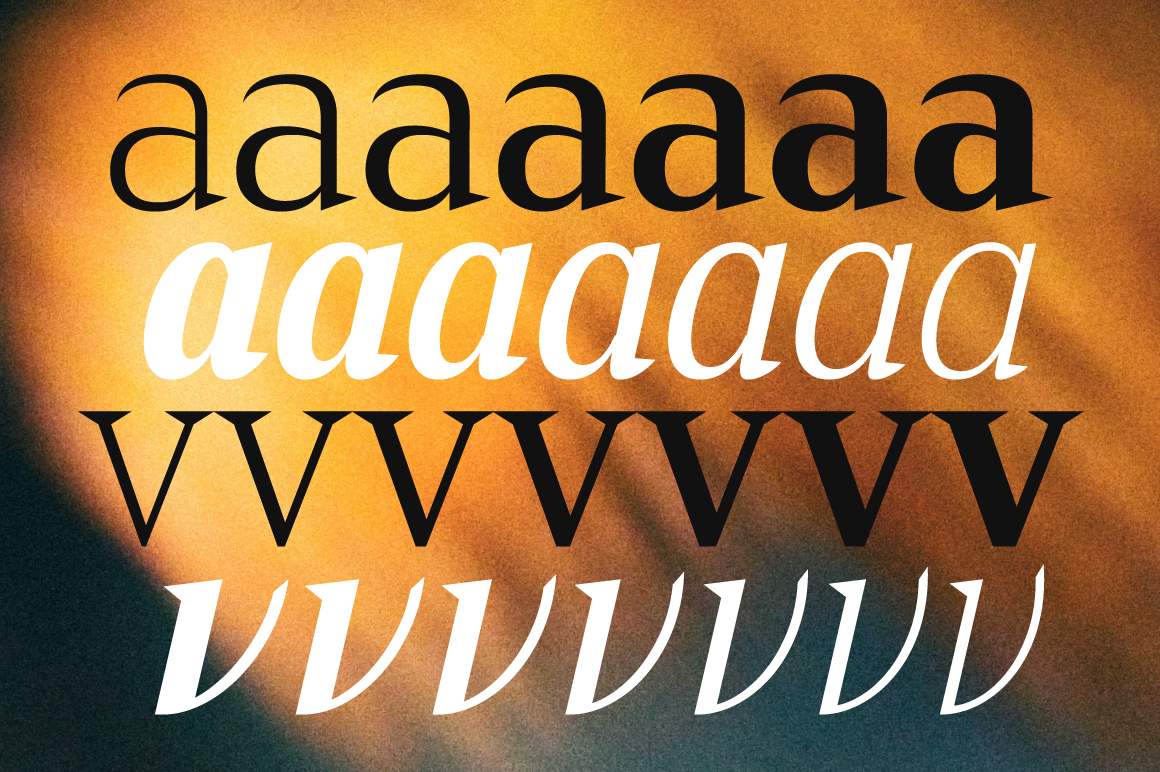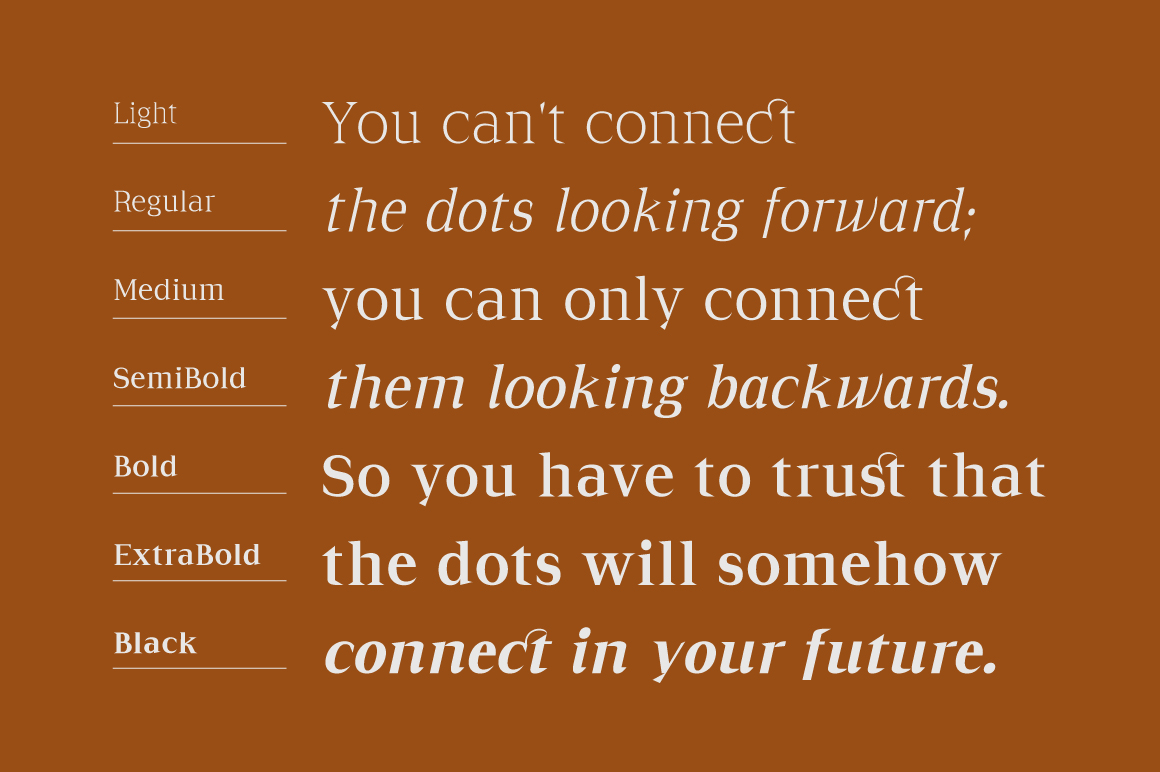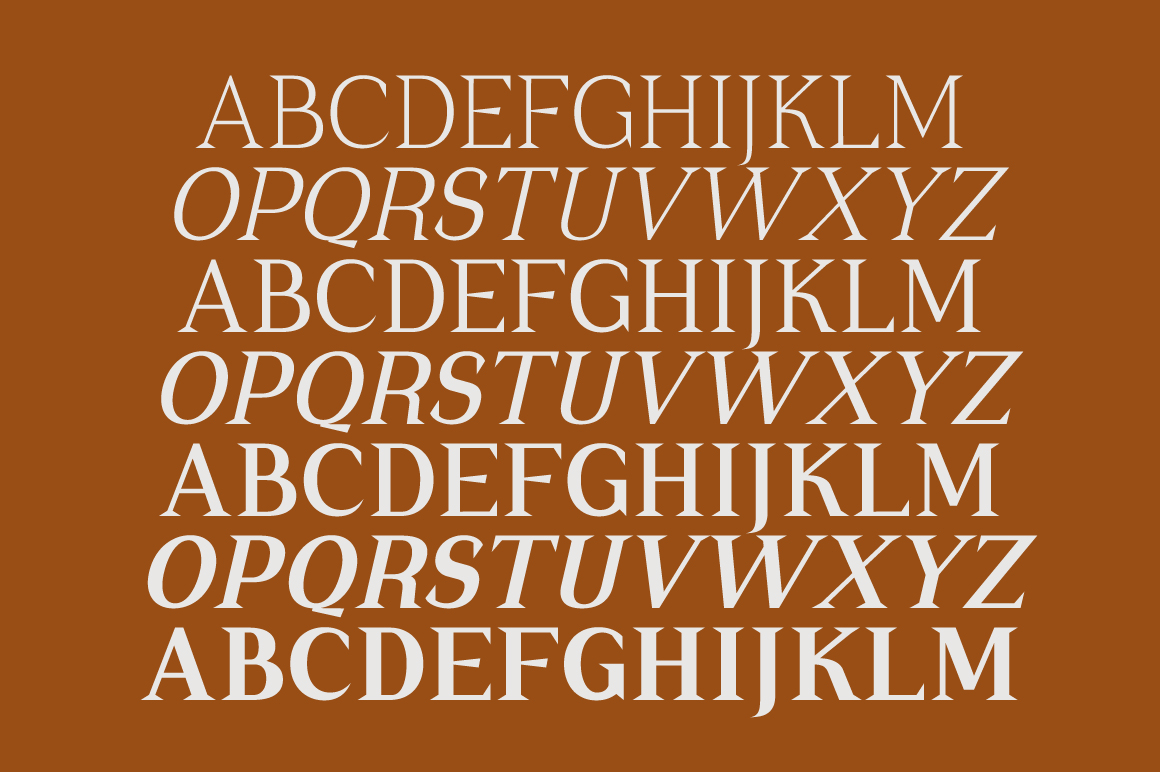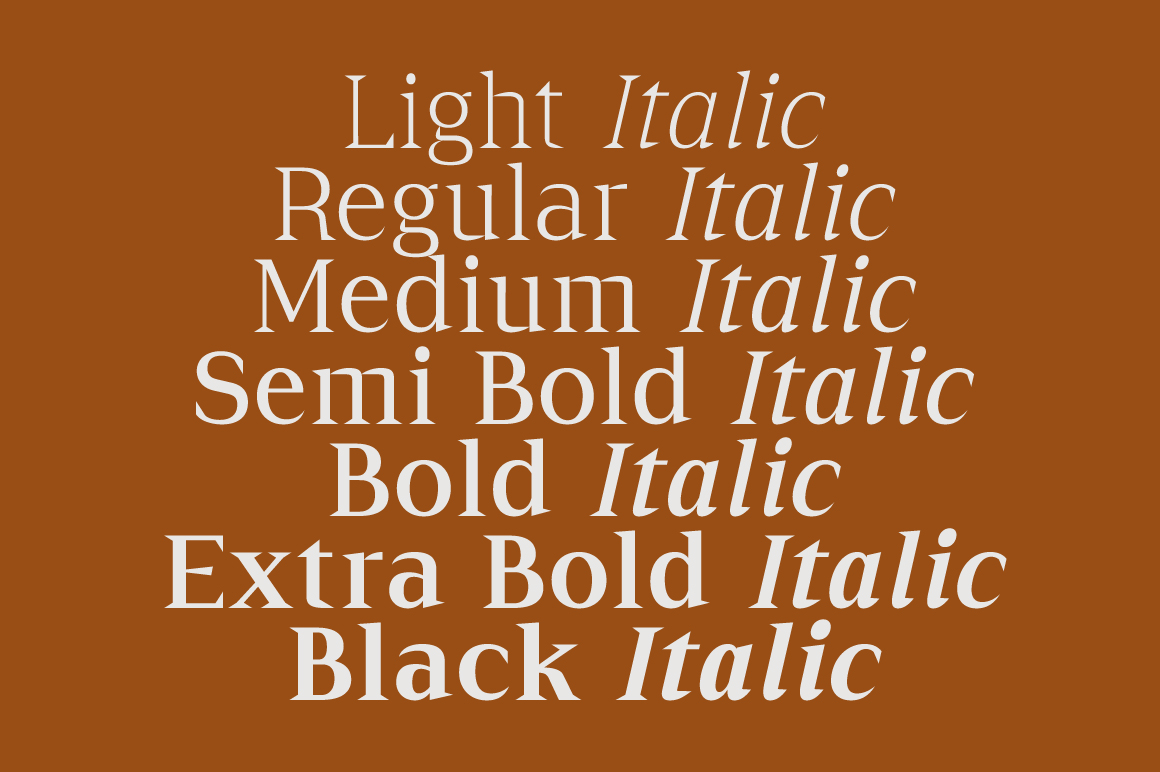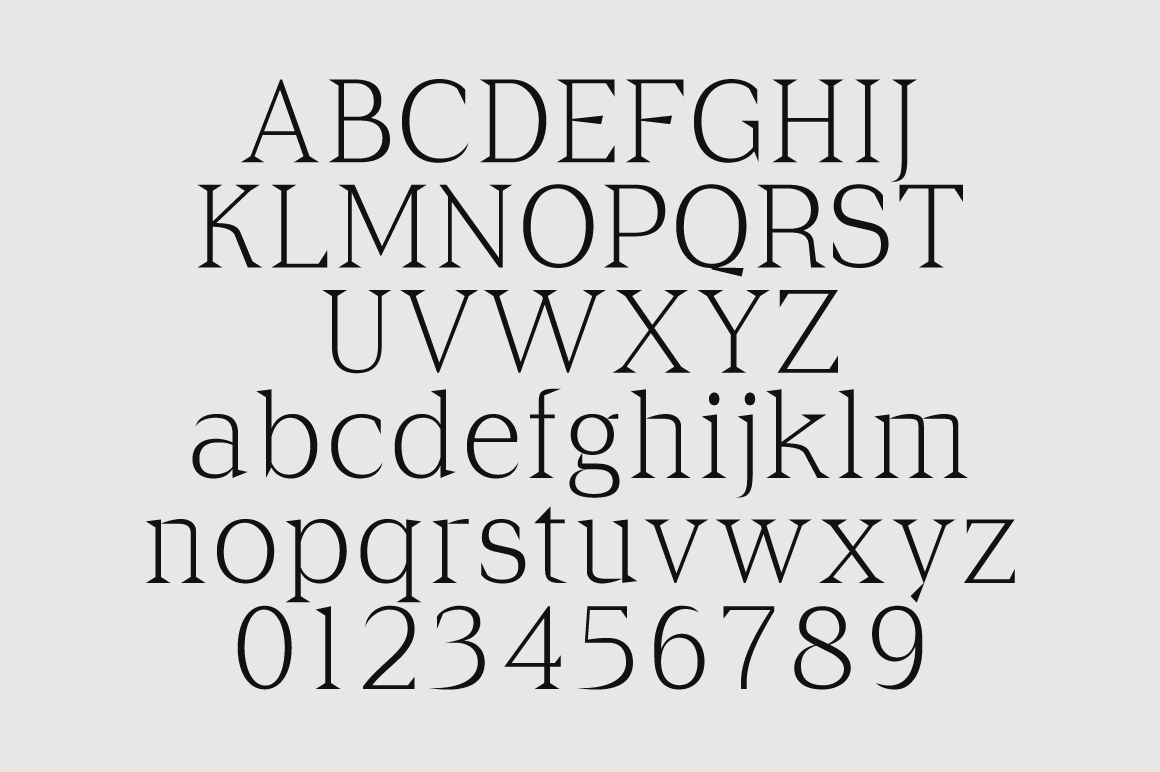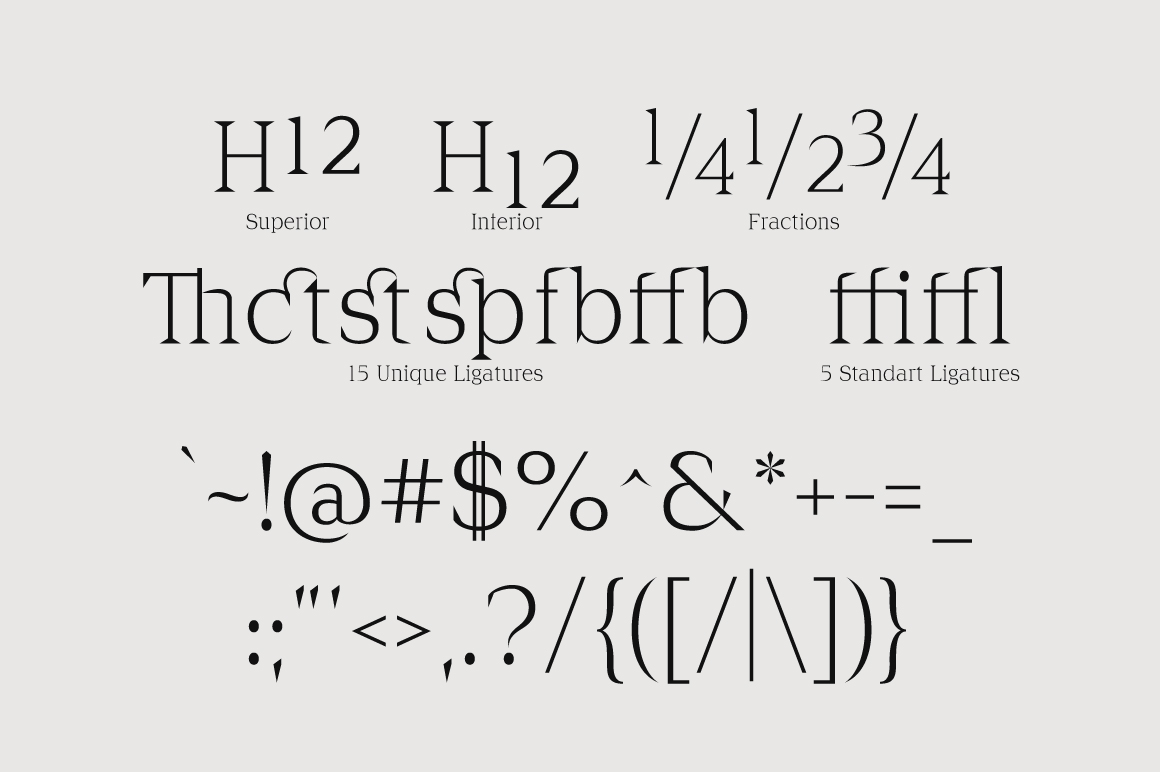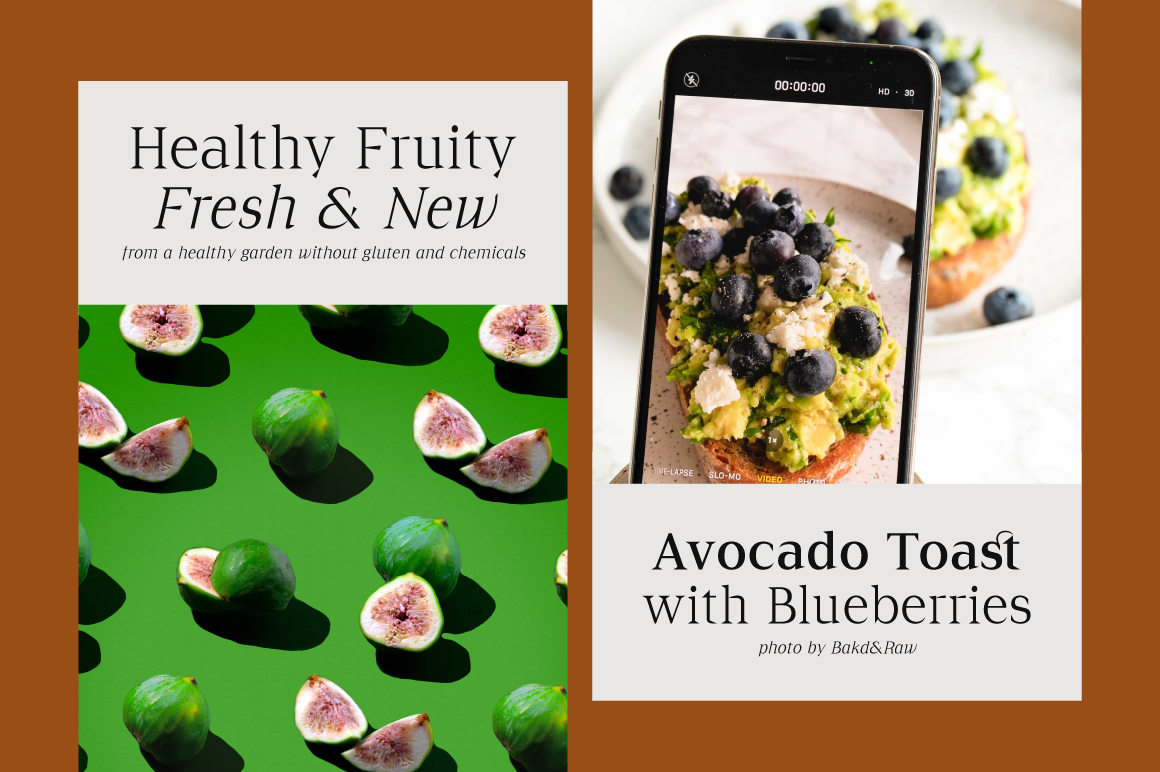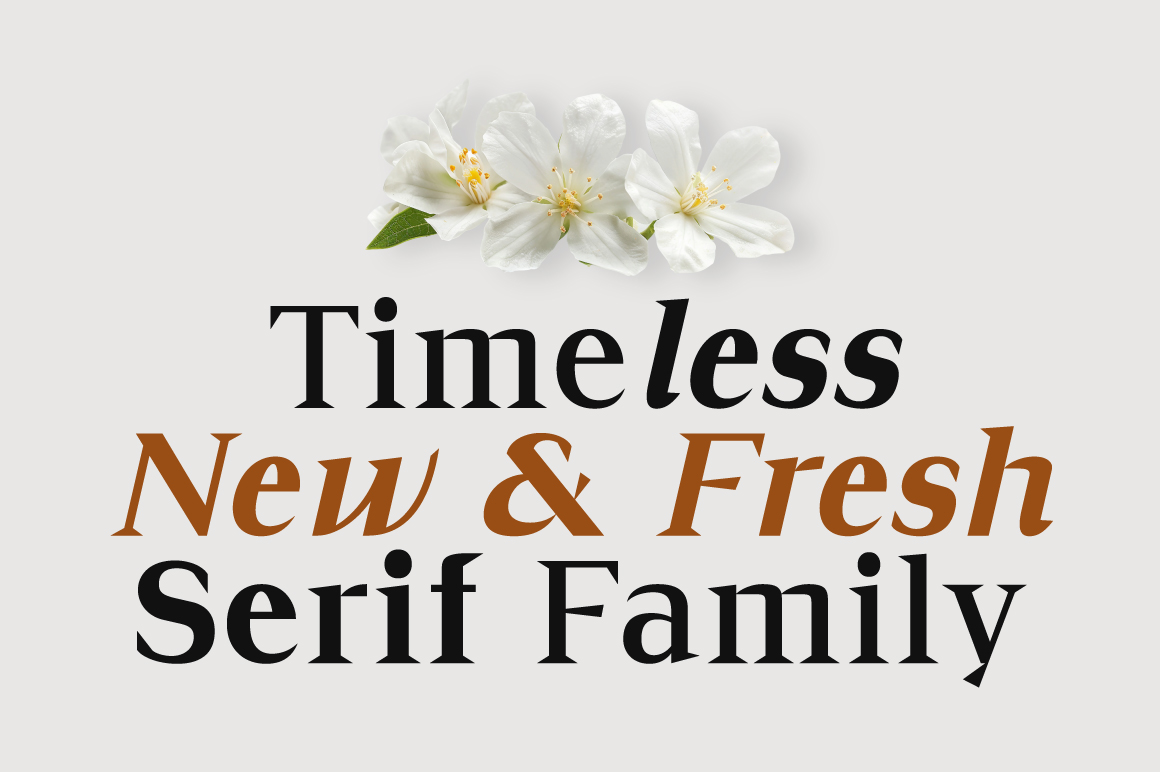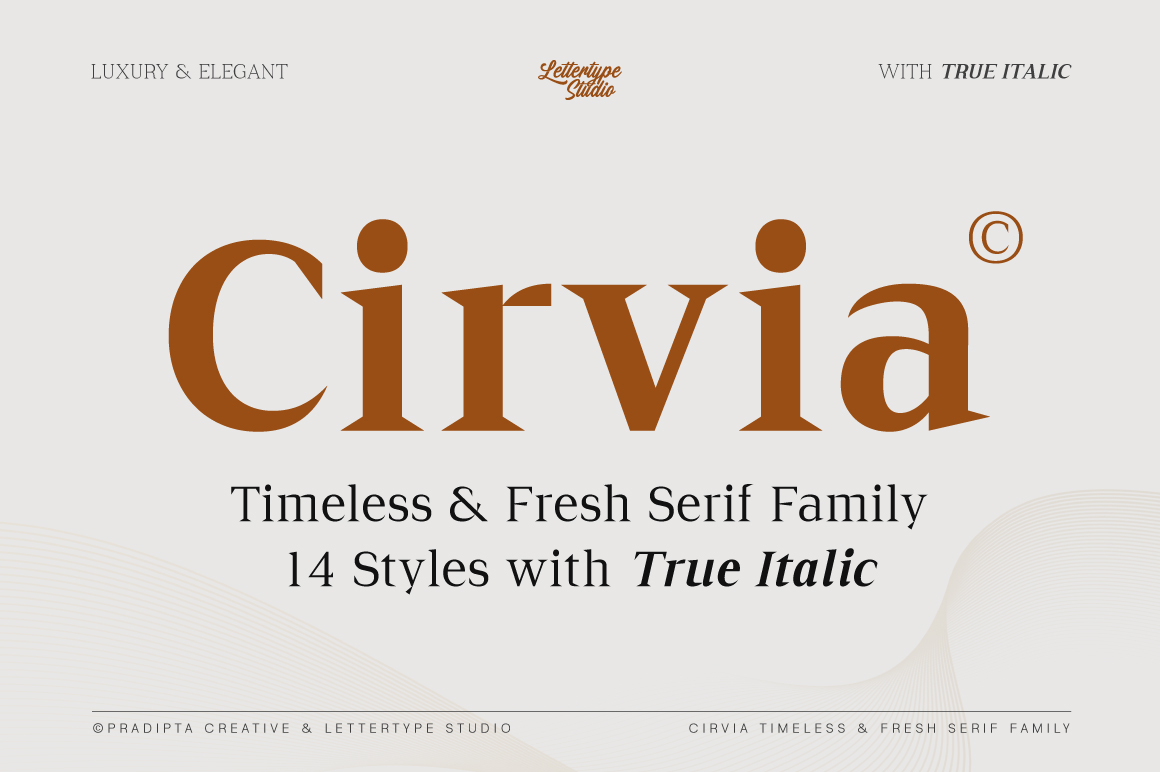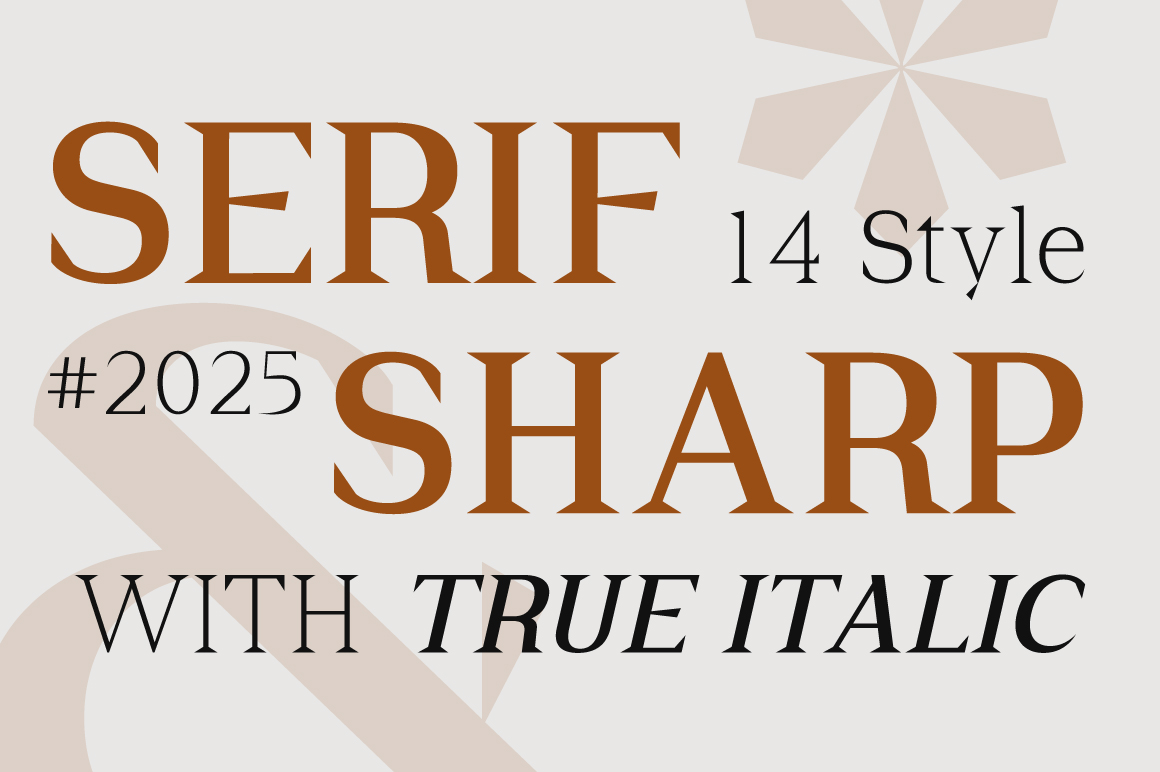
Cirvia is a timeless serif font family that redefines elegance with modern sophistication. This refined typeface seamlessly blends classic luxury with contemporary freshness, offering 14 meticulously crafted styles that range from delicate Thin to powerful Black, each complemented by genuine italics. Cirvia comes with 15 unique ligatures and 5 standard ligatures. Whether you’re designing high-end branding, editorial layouts, luxury packaging, or a minimalist logo, this font family brings a striking presence with its graceful curves, precise contrast, and refined proportions that exude confidence and class.
Perfect for premium projects, this versatile serif collection ensures flawless readability and captivating visual impact across print and digital media. Its editorial charm and timeless appeal make it the perfect companion for fashion lookbooks, wedding invitations, upscale advertising, or artistic portfolios. With a complete range of weights and true italics, this font family provides limitless creative potential for designers seeking beauty, functionality, and distinction in every letterform.
Cirvia Features:
• 14 Styles
• Upright & True Italic
• 479 Glyphs Total
• 260+ Languages Support
• Luxury branding, fashion lookbooks & editorial magazines
• Wedding invitations, stationery & upscale packaging
• Logo design, visual identities & advertising campaigns
• Book titles, posters & artistic portfolio layouts
• Websites & digital media with timeless, elegant tone